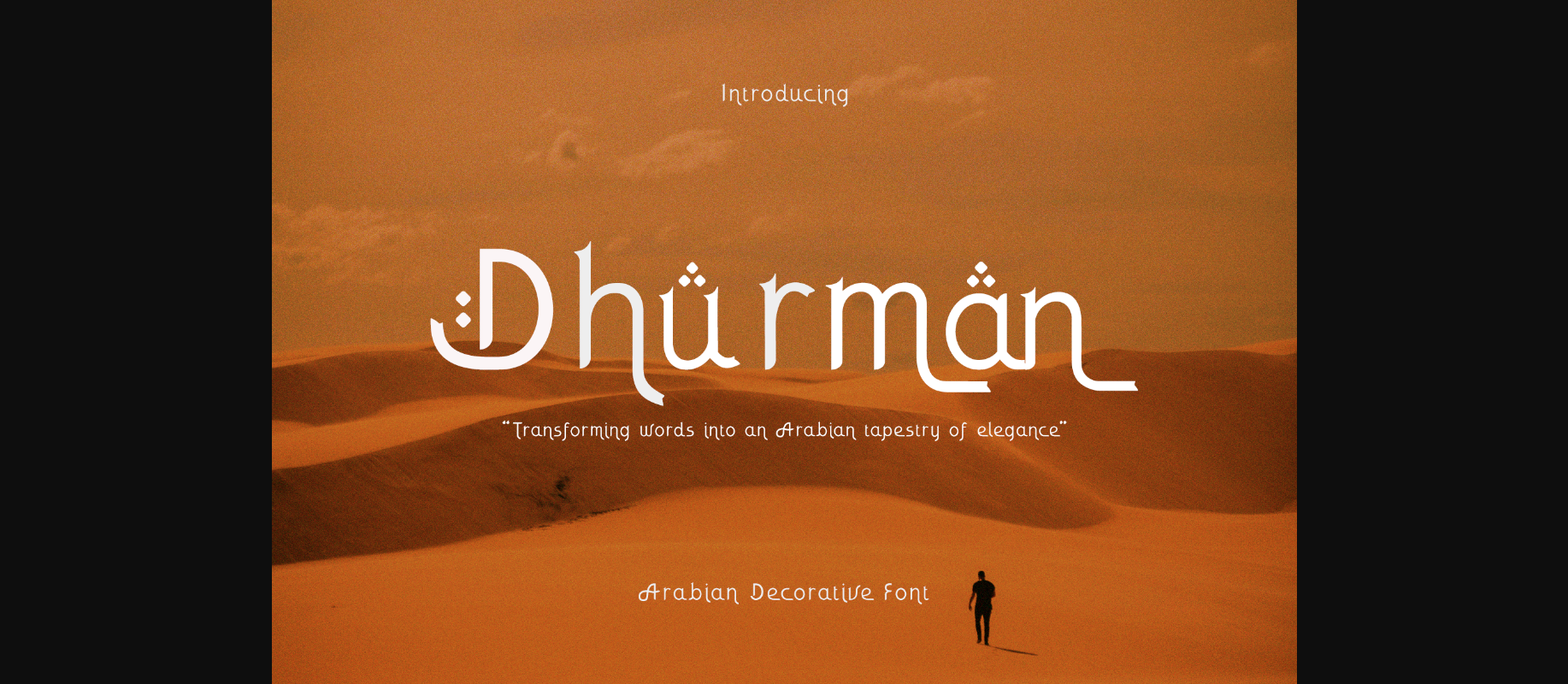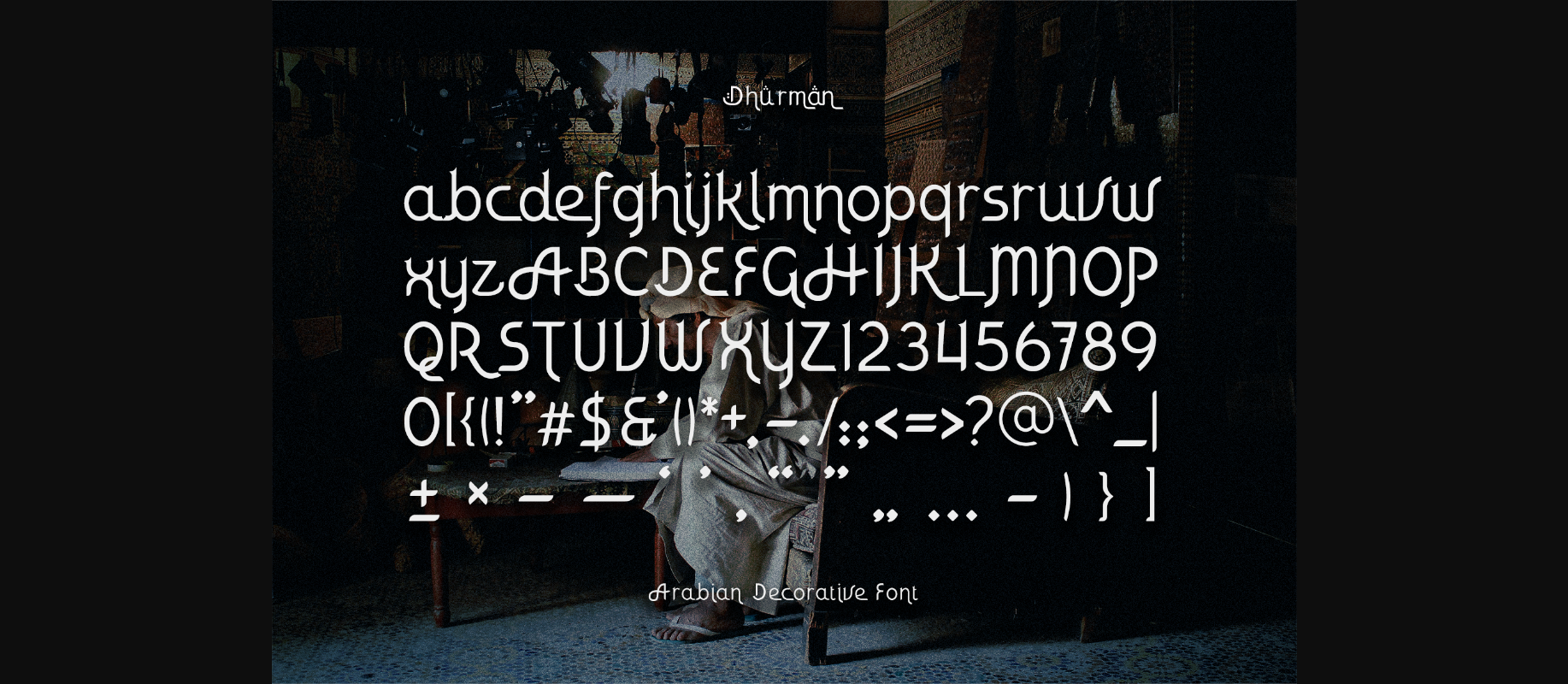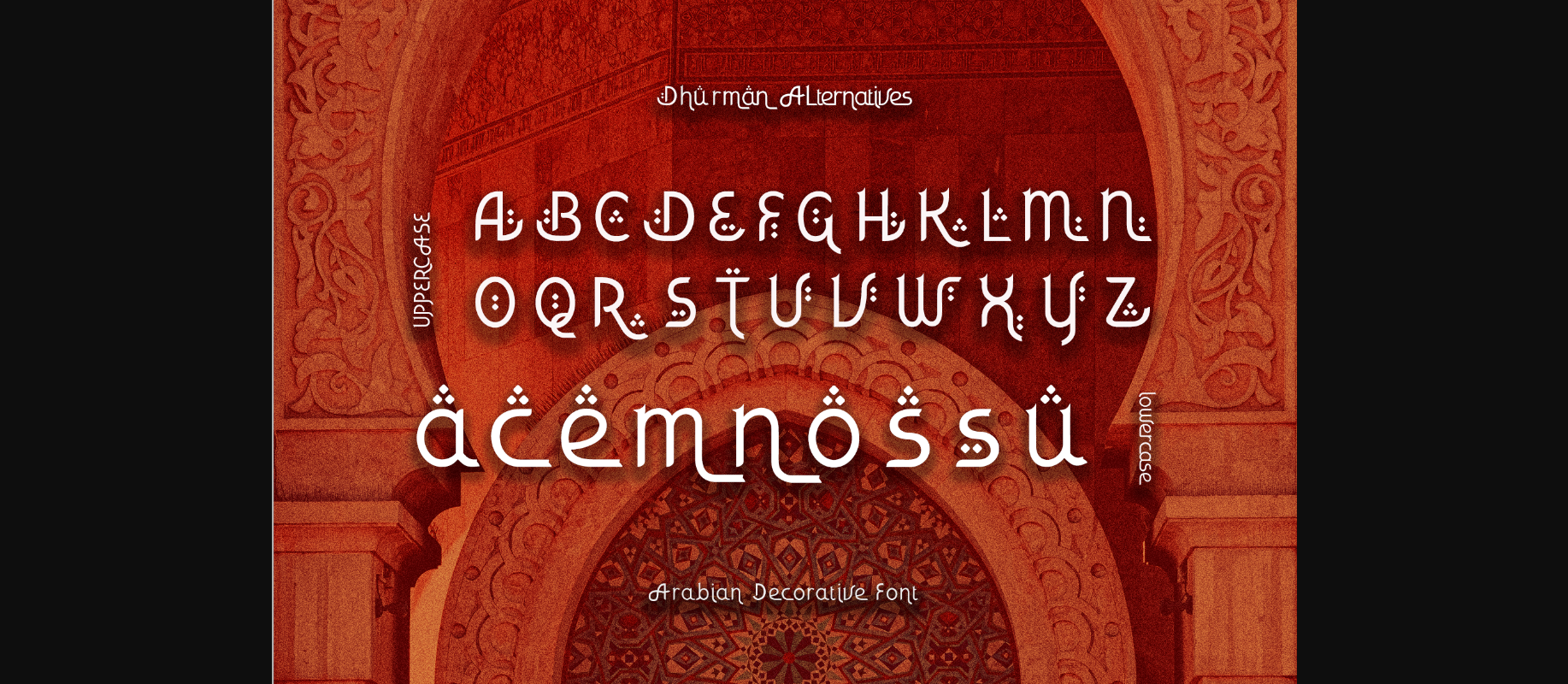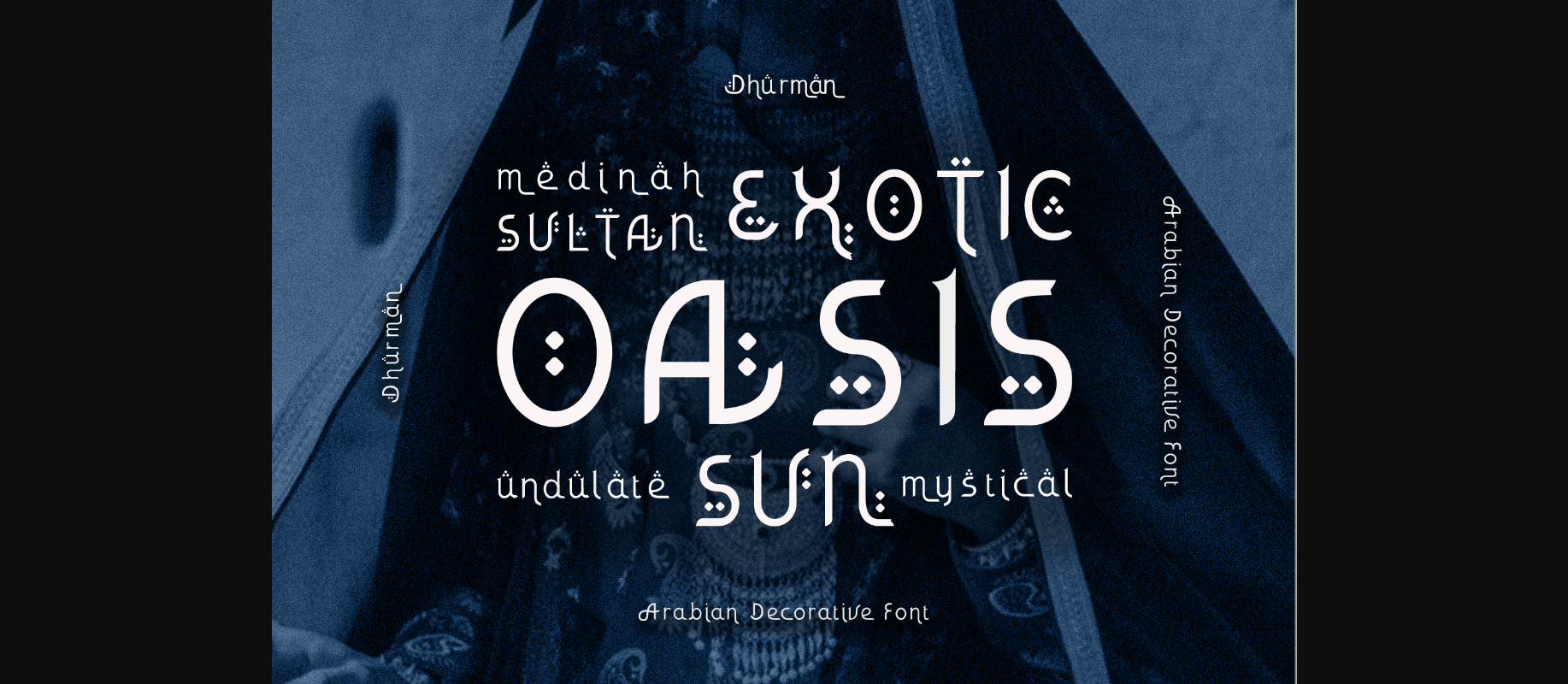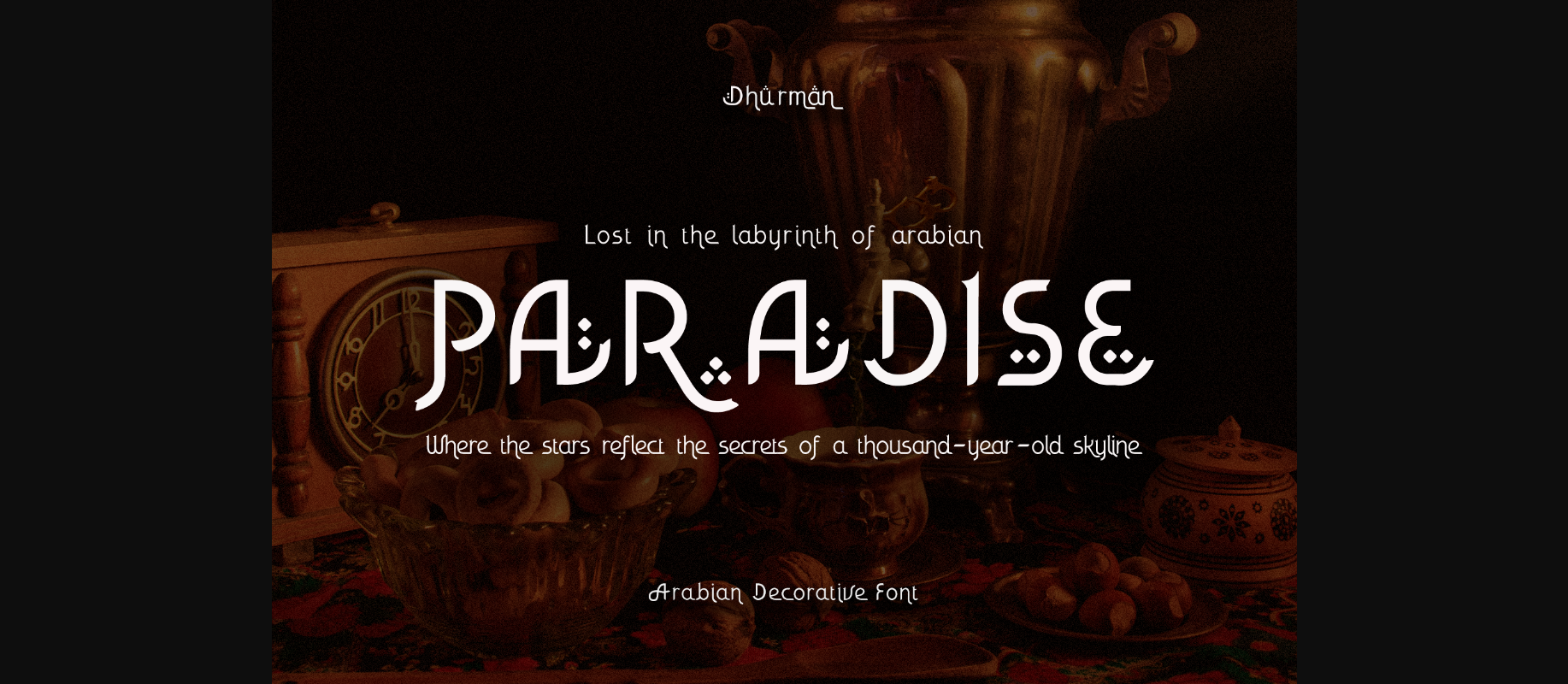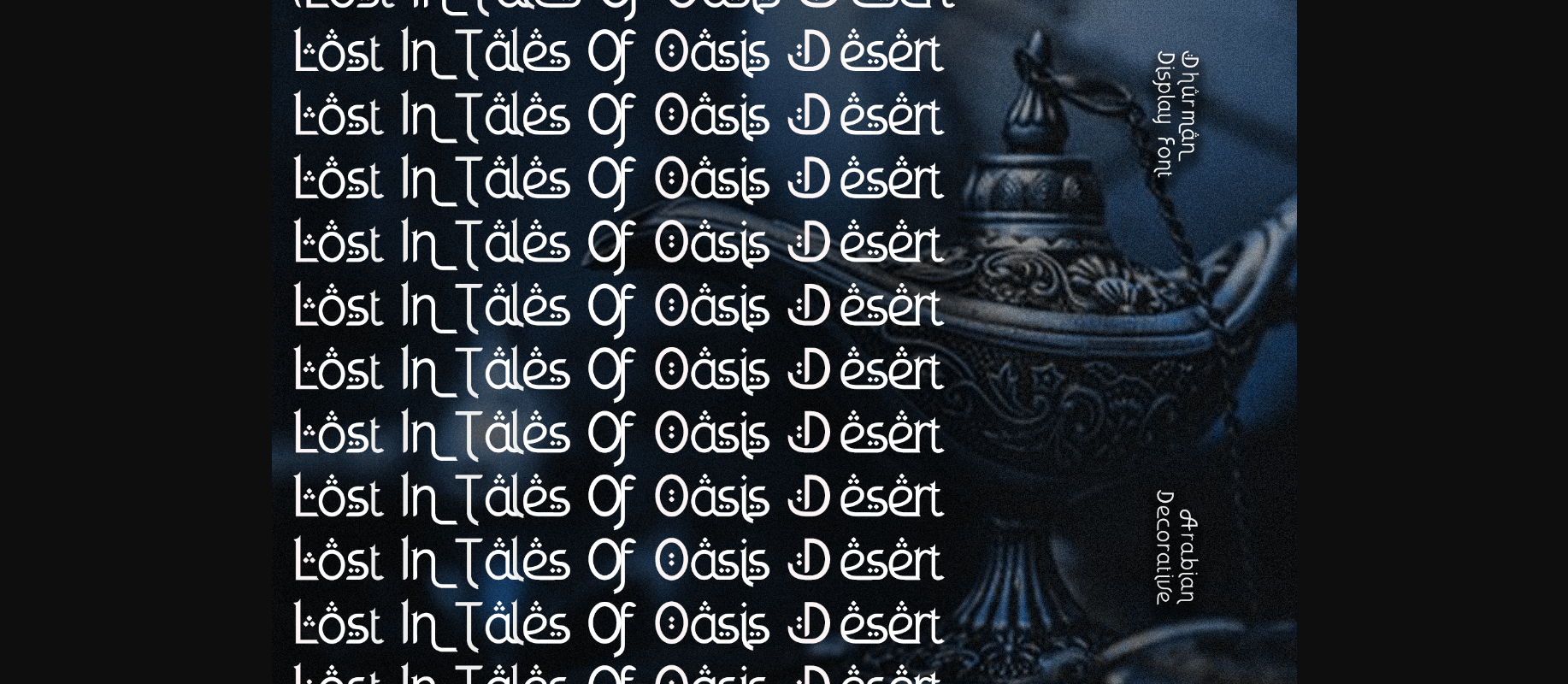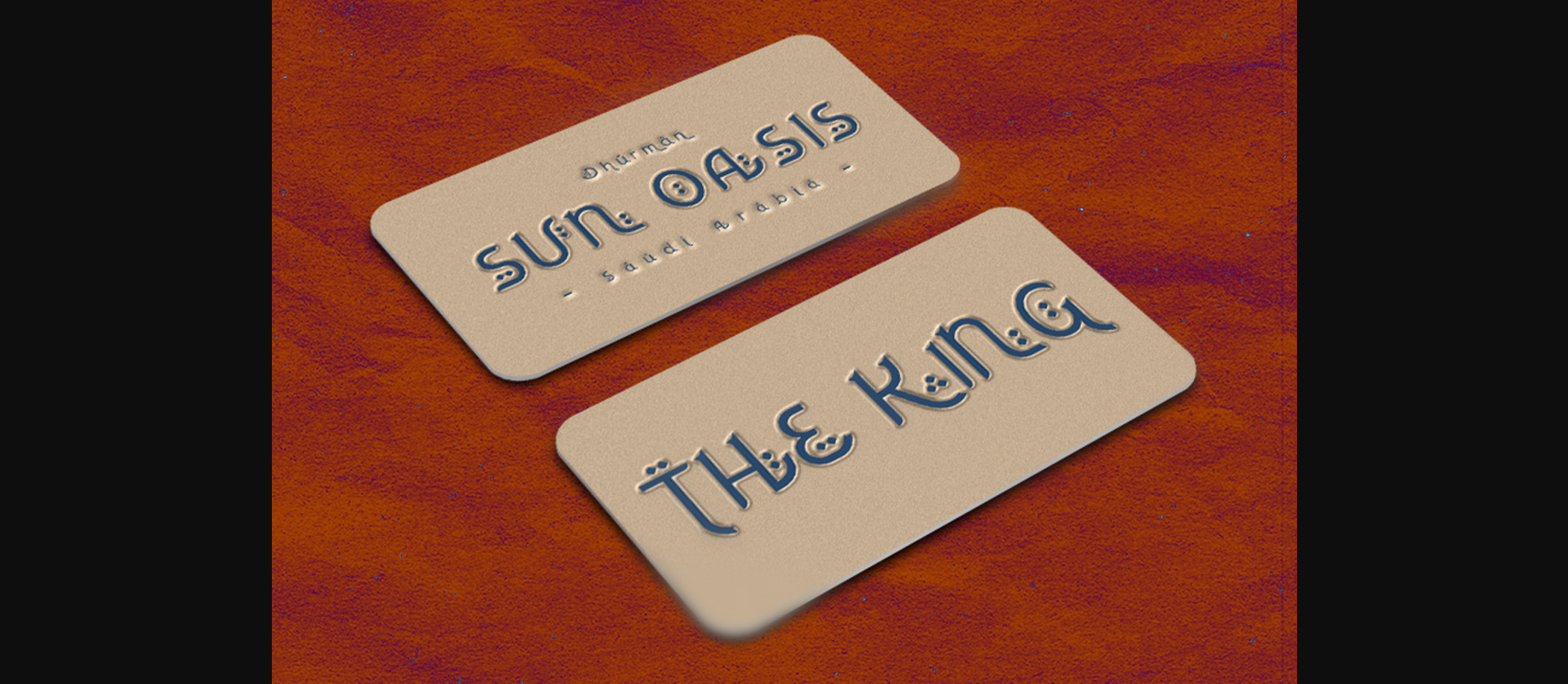
Dhurman is decorative and elegant, with a flowing, organic feel. The letters have flourishes and other decorative elements. The font is reminiscent of traditional Arabic calligraphy but with a modern twist.